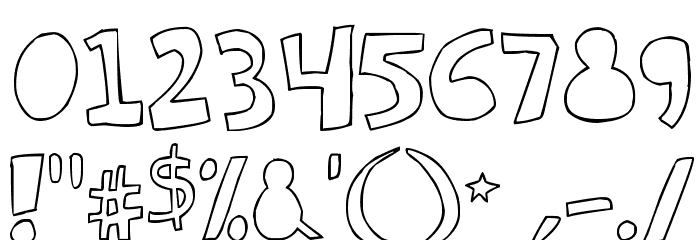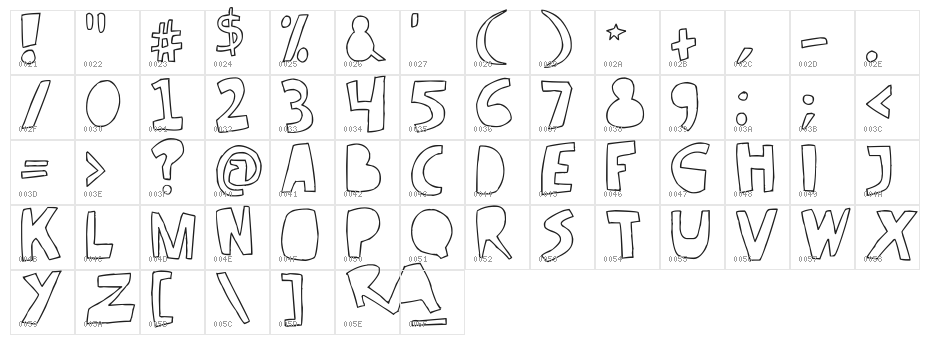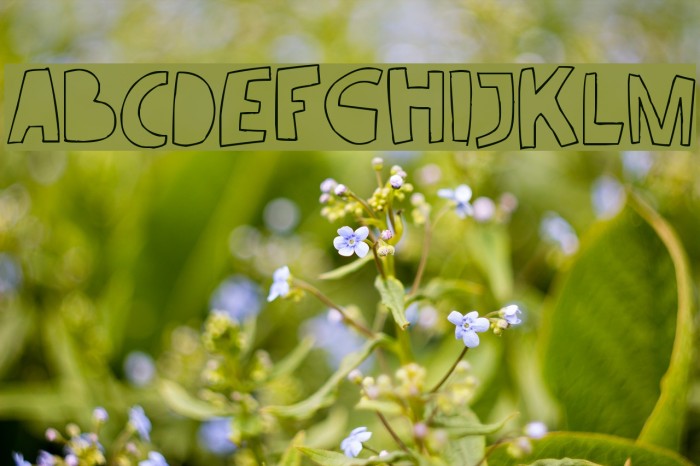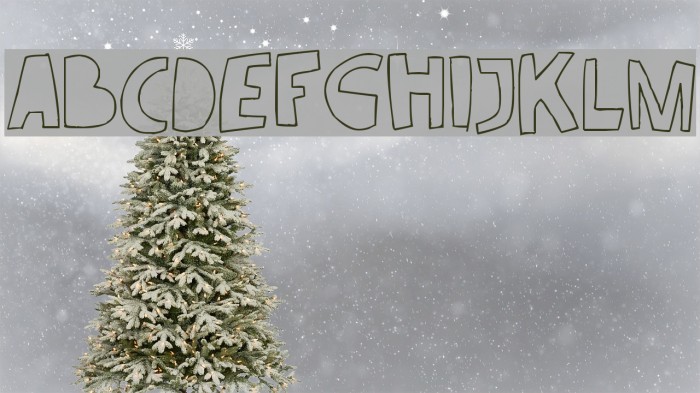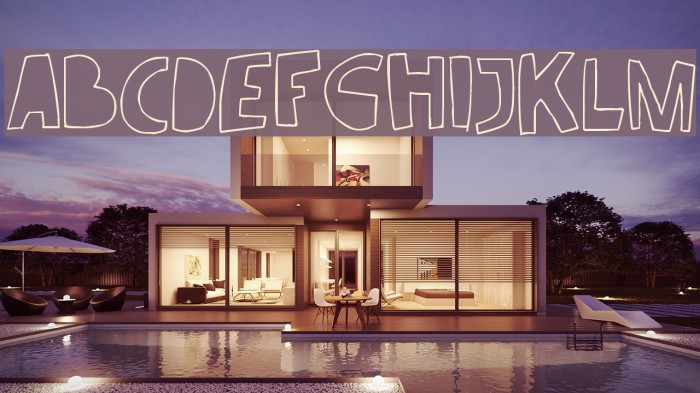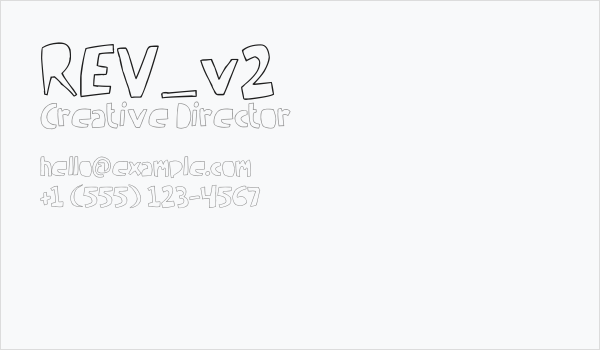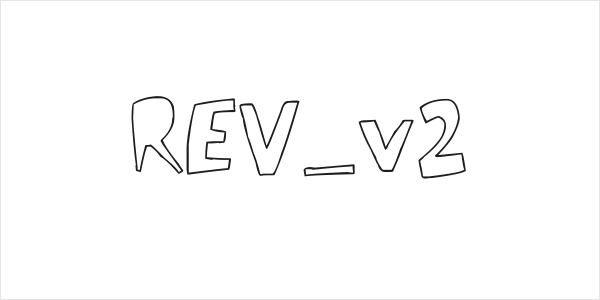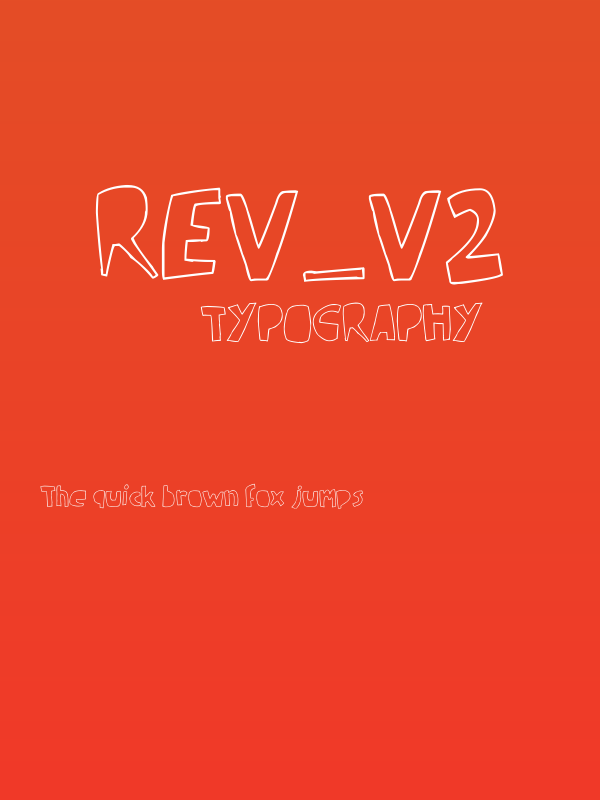
REV_v2 Font
REV_v2 Description
This font features a playful and quirky style with bold, uneven strokes that give it a hand-drawn appearance. The characters are slightly irregular, adding to its whimsical charm. The uppercase and lowercase letters maintain a consistent style, with rounded edges and a casual feel. Numbers and special characters follow the same playful design, making this font suitable for creative projects. The overall look is informal and fun, perfect for capturing attention in a lighthearted way.
| Proposed Projects | Ideal for children's books, comic strips, playful branding, and creative posters. |